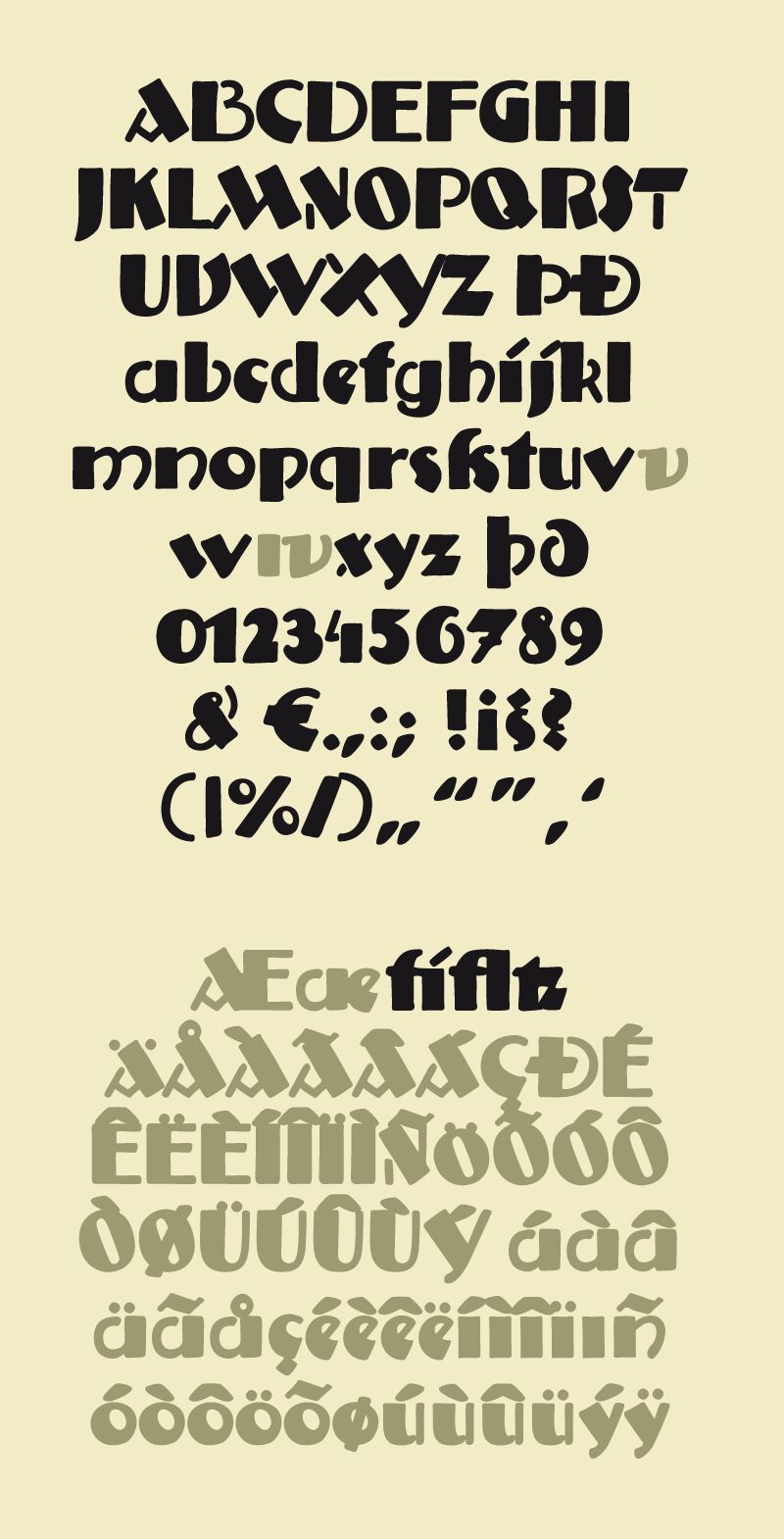
Anatole France iF Reduced by Ingo Zimmermann of ingoFonts is a free decorative display font with a hefty, cut-paper look. Its broad letters shift between blunt curves, steep diagonals, and unexpected notches. Several forms seem tilted or pieced together.
Poster titles are the clearest fit, since the uneven silhouettes can become part of a bold graphic rather than neutral type. The same rough geometry also suits experimental music packaging, arts festival branding, and playful editorial covers, especially when the lettering needs to echo collage or hand-cut illustration.
Anatole France iF